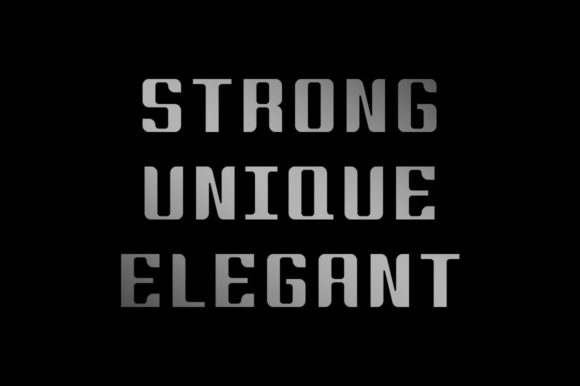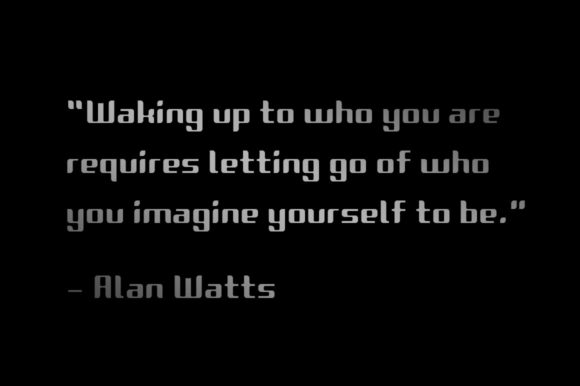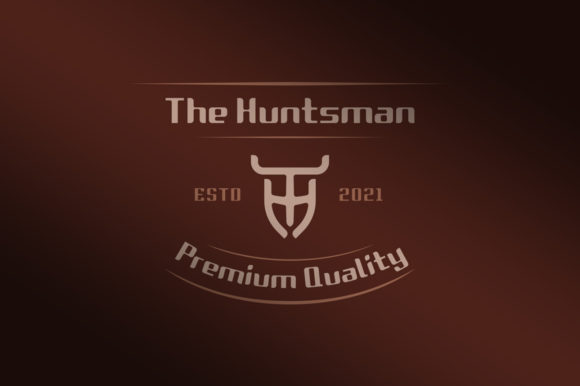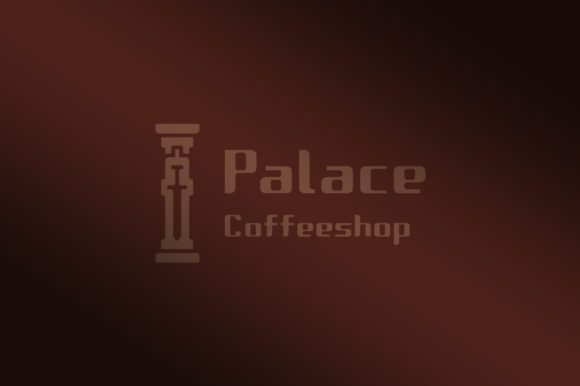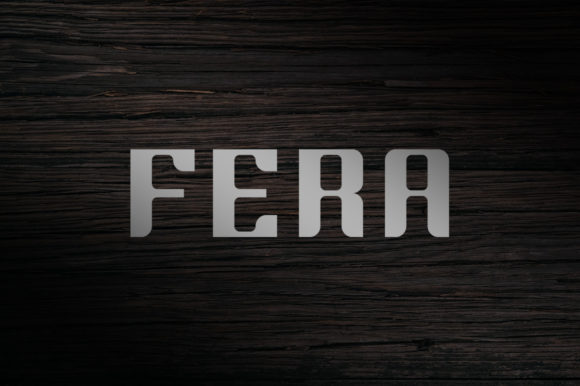
Fera Font: The Ultimate Display Font for Your Creative Projects
Are you a designer or crafter looking for a font that can elevate your creative projects to the next level? Look no further than Fera Font, a cool and trendy display font that’s perfect for a wide range of applications. In this article, we’ll explore the features and benefits of Fera Font, and show you how to make the most of its endless possibilities.
What is Fera Font?
Fera Font is a stylish and modern display font that’s designed to make a statement. Its unique and elegant lettering style makes it perfect for use on food menus, posters, flyers, and prints. Whether you’re a professional designer or a crafty DIY enthusiast, Fera Font is a versatile and easy-to-use font that can add a touch of sophistication and glamour to any project.
Key Features of Fera Font
So, what makes Fera Font so special? Here are just a few of its key features:
- Cool and trendy design: Fera Font has a modern and edgy design that’s sure to grab attention.
- Highly legible: Despite its stylized lettering, Fera Font is highly legible, even at smaller sizes.
- Versatile: Fera Font can be used for a wide range of projects, from food menus and posters to flyers and prints.
- Easy to use: Fera Font is a straightforward and easy-to-use font that’s compatible with most design software.
Endless Possibilities with Fera Font
So, what can you create with Fera Font? The possibilities are endless! Here are just a few ideas to get you started:
- Food menus: Add a touch of elegance and sophistication to your restaurant or cafe menu with Fera Font.
- Posters and flyers: Use Fera Font to create eye-catching posters and flyers for events, promotions, and products.
- Prints and artwork: Fera Font is perfect for use on prints, artwork, and other creative projects.
- Branding and packaging: Use Fera Font to create a consistent brand identity across your packaging and marketing materials.
Tips for Using Fera Font
Here are a few tips for getting the most out of Fera Font:
- Experiment with different sizes: Fera Font looks great at a range of sizes, from small and subtle to large and bold.
- Play with colors and textures: Fera Font looks great in a range of colors and textures, so don’t be afraid to experiment.
- Use it sparingly: Fera Font is a bold and attention-grabbing font, so use it sparingly to avoid overwhelming your design.
In conclusion, Fera Font is a cool and trendy display font that’s perfect for designers and crafters looking to add a touch of elegance and sophistication to their creative projects. With its unique and elegant lettering style, highly legible design, and endless possibilities, Fera Font is a versatile and easy-to-use font that’s sure to become a favorite in your design toolkit. So why wait? Download Fera Font today and start exploring its endless possibilities!